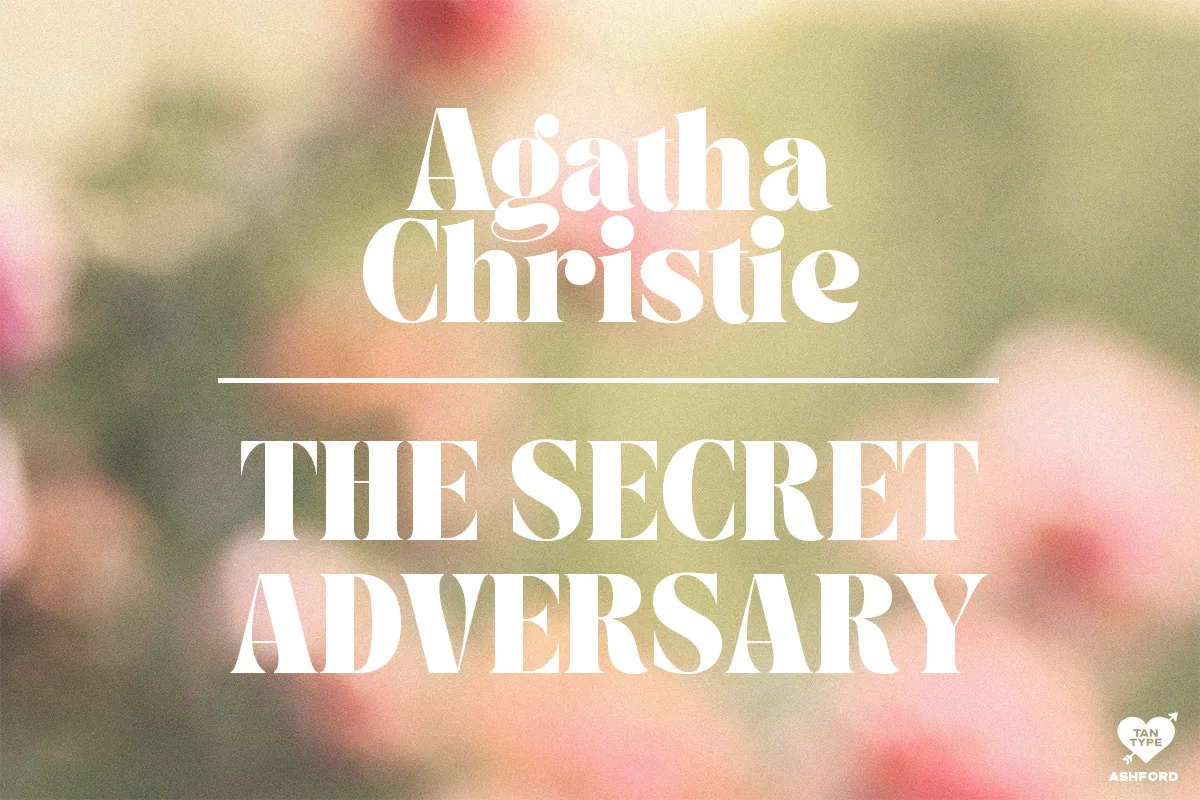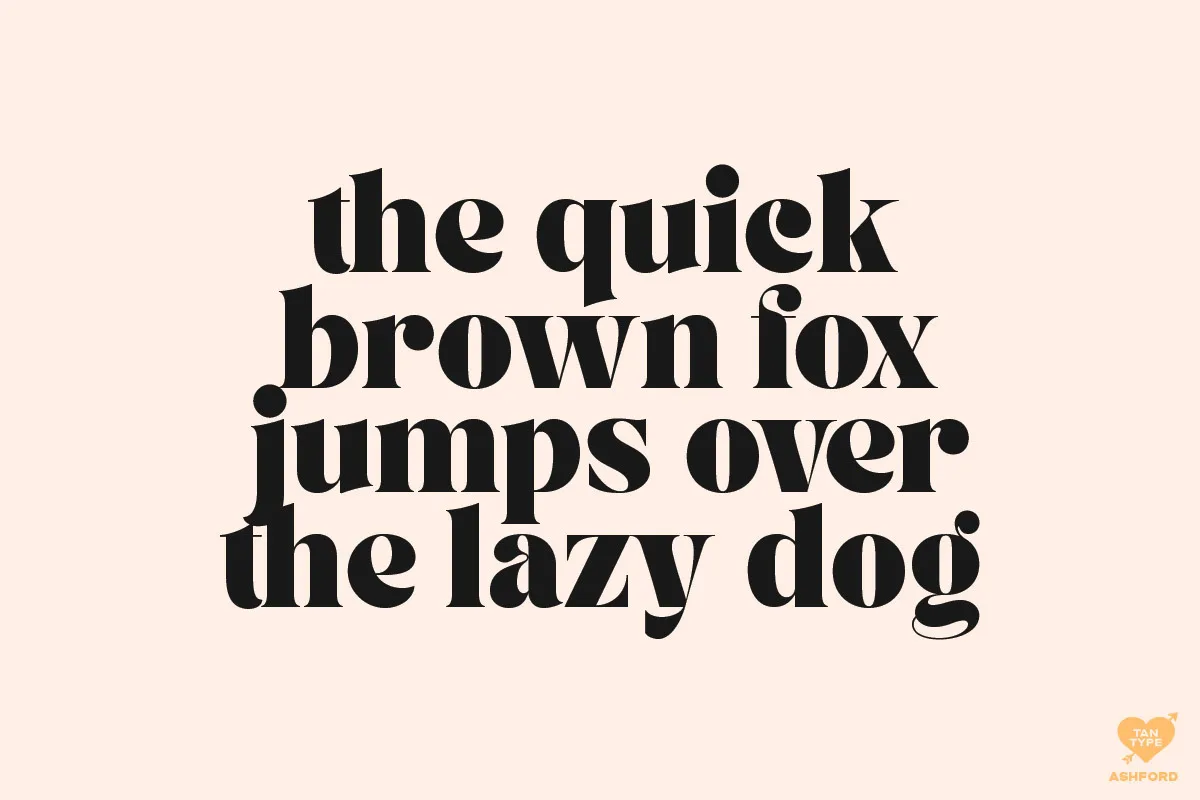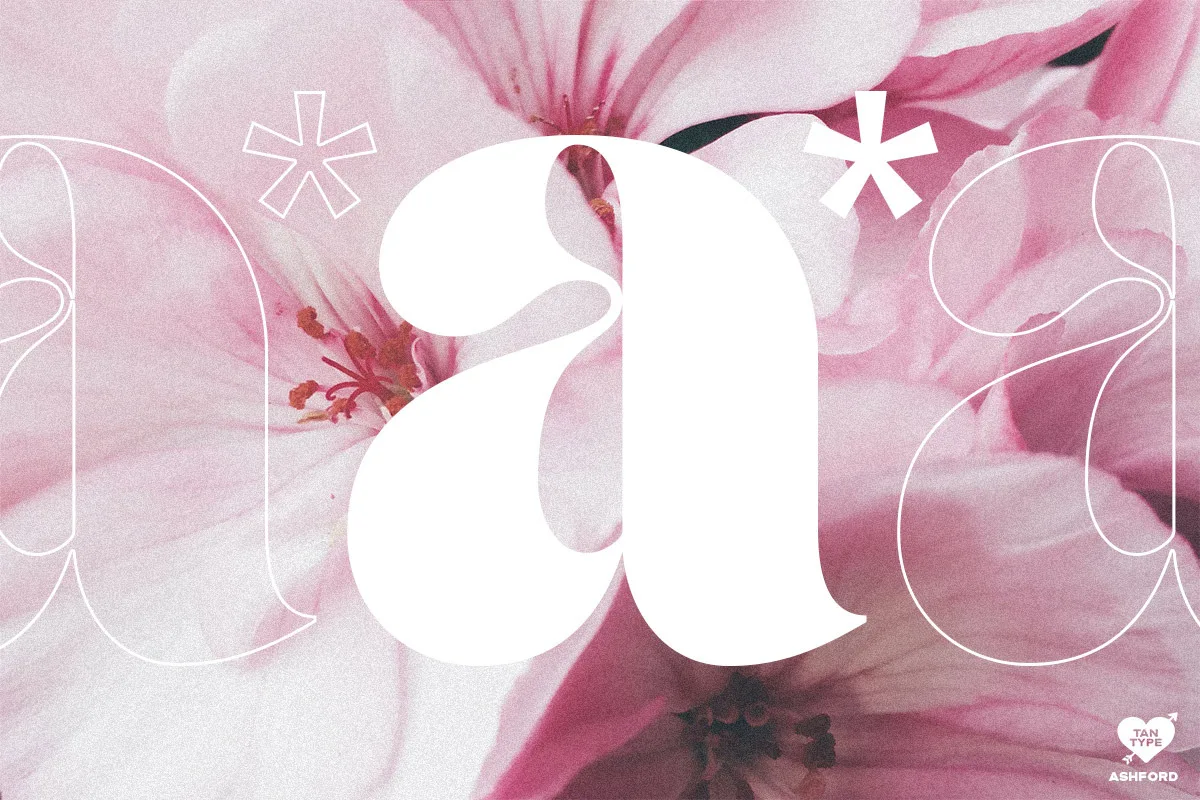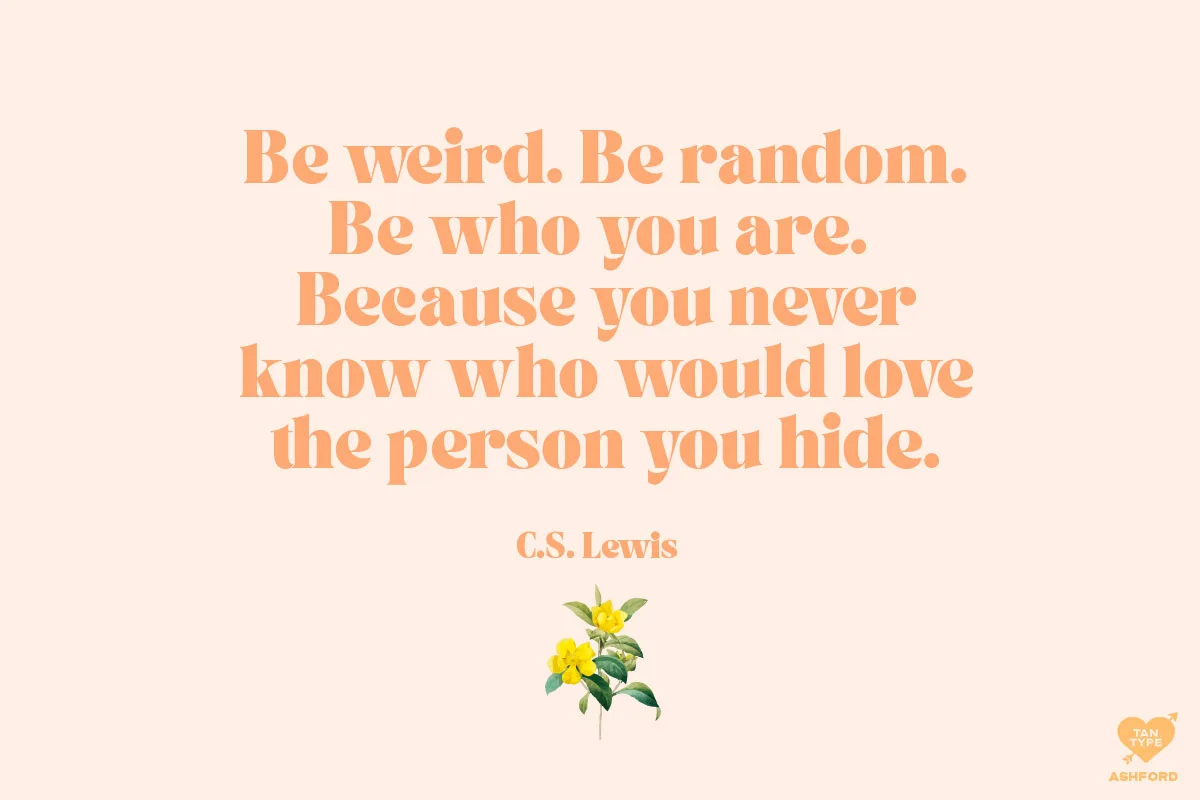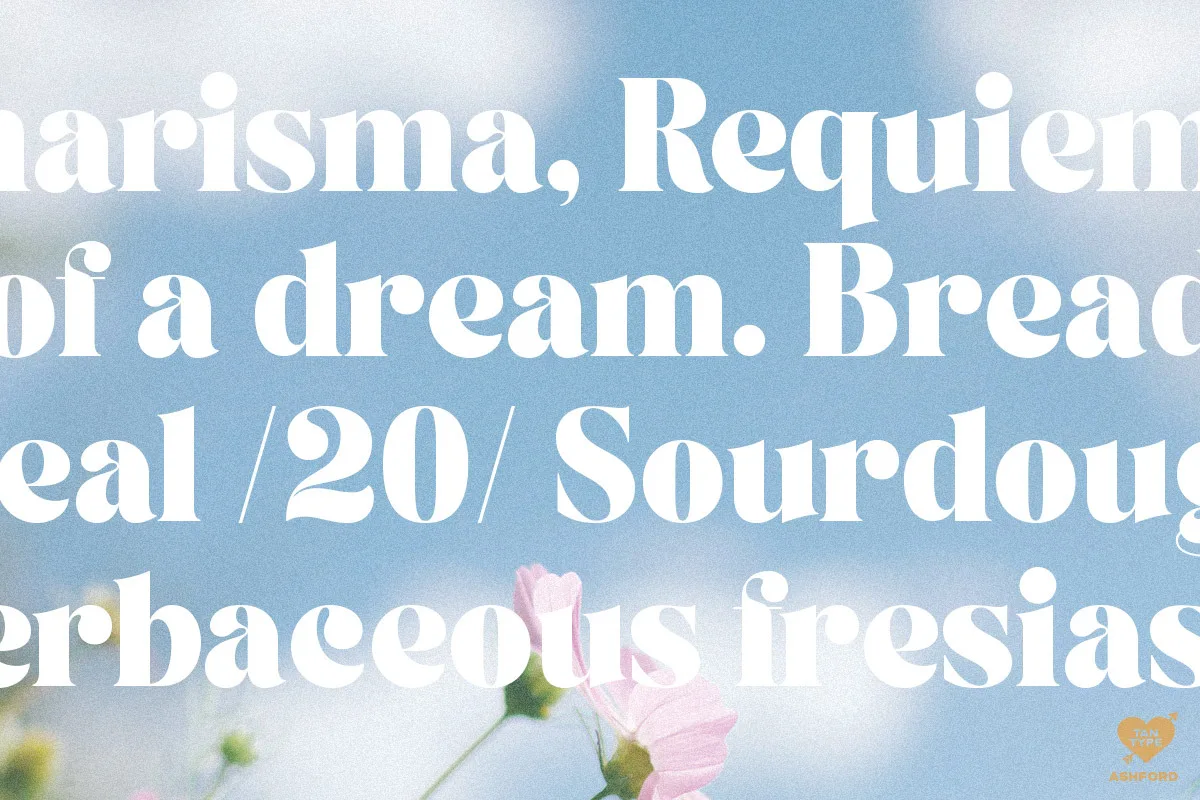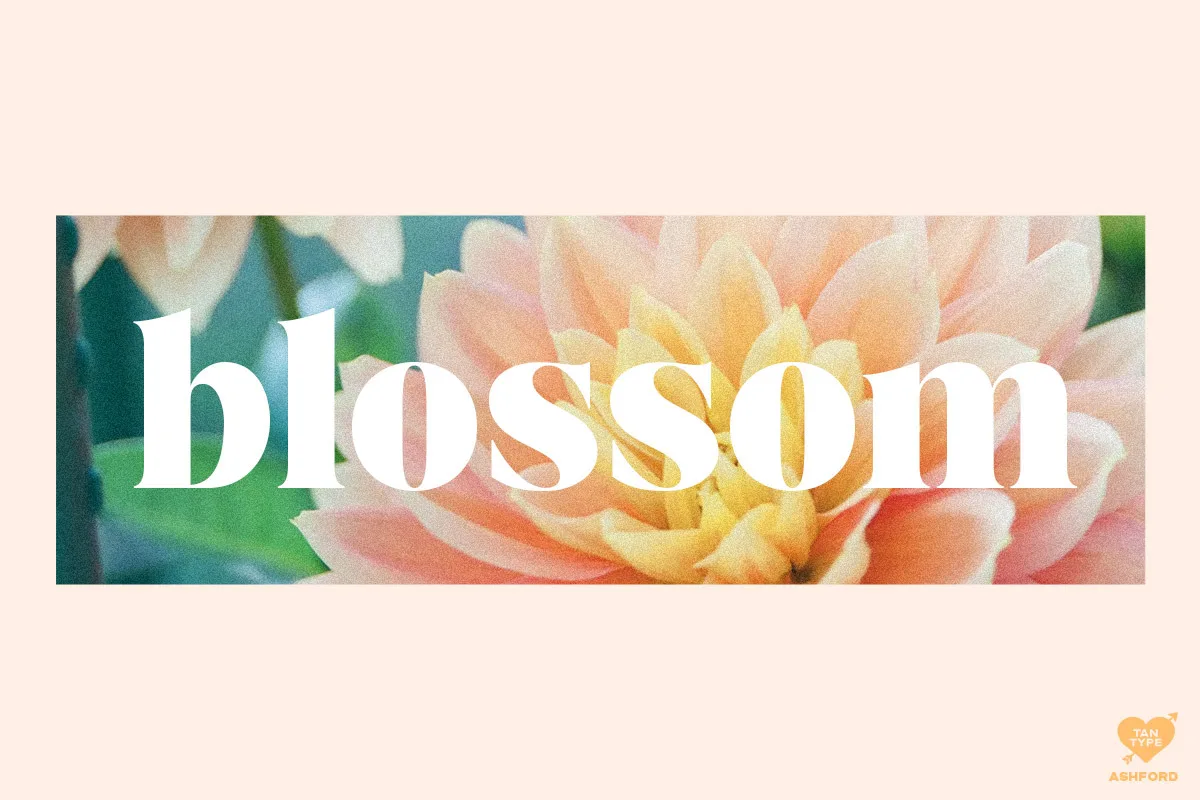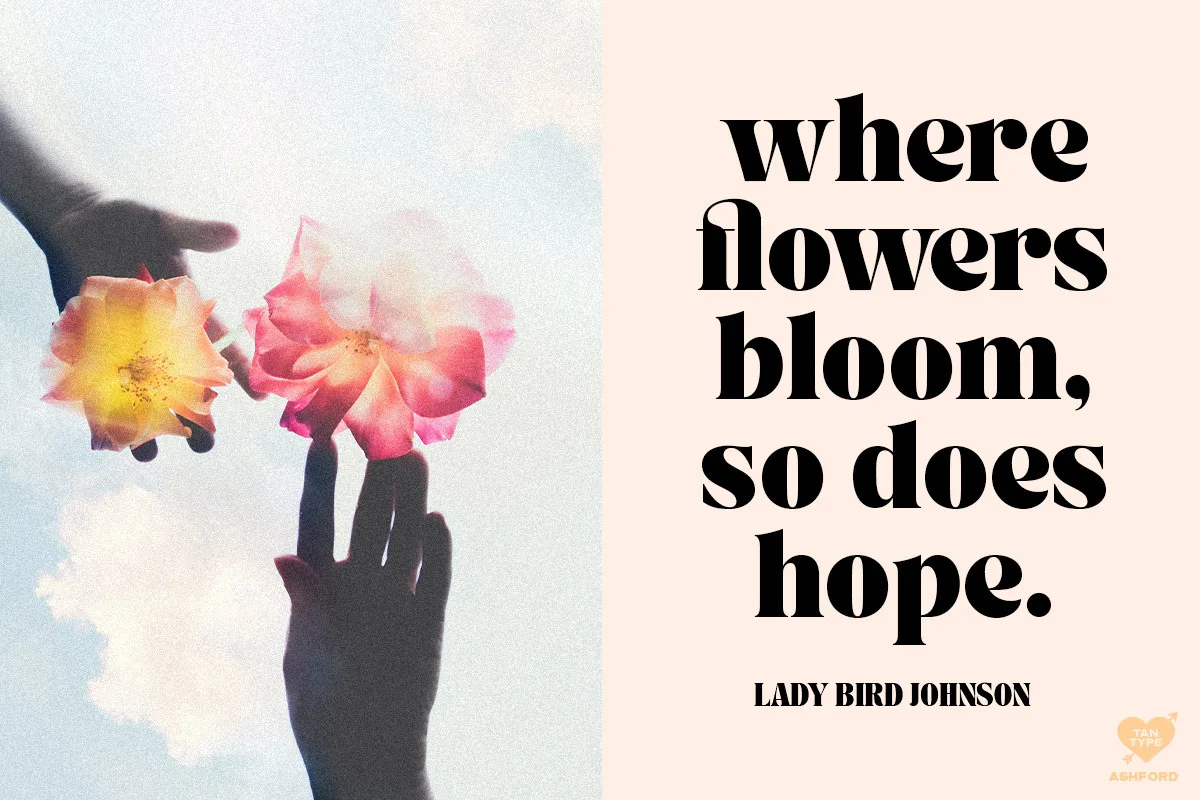
Tan Ashford is a bold serif font with high contrast, making it a versatile and elegant typeface. With a touch of vintage vibes, it will add a sleek and bold look for headlines, invitations, advertising and more.
Tan Ashford Font: Bold Serif